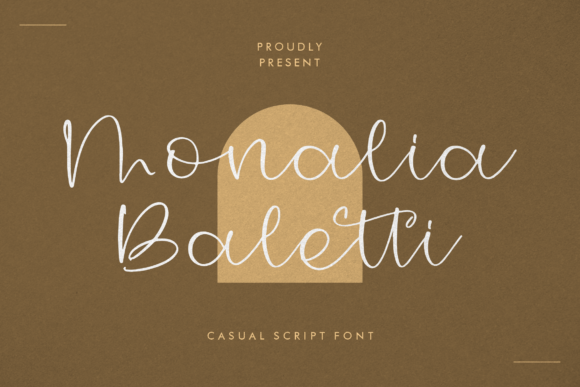
Introducing Monalia Baletti, an exquisite script font crafted by the talented artists at Letterfabric. Its sweeping curves and graceful strokes exude elegance and charm, making it the perfect choice for your creative projects.
Compose captivating logos that leave a lasting impression. Let your branding projects radiate sophistication with Monalia Baletti's timeless aesthetic. Elevate homeware designs with a touch of refined beauty. Transform product packaging into objects of desire, each one a testament to your discerning taste.
Create mugs that speak volumes, each sip a celebration of life's simple pleasures. Express your emotions eloquently on posters and quotes, letting your words dance with grace. Design shopping bags that turn heads, transforming everyday errands into fashion statements. Unleash your inner artist with t-shirts that showcase your unique style.
Adorn book covers with Monalia Baletti's enchanting allure, captivating readers from the very first glance. Create name cards that exude professionalism and leave a lasting impression. Craft invitation cards and greeting cards that convey your heartfelt sentiments in a truly memorable way.
Capture life's precious moments with photographs enhanced by Monalia Baletti's delicate touch. Create watermarks that add an air of exclusivity to your digital creations. Let your special events shine with Monalia Baletti as the backdrop, transforming them into unforgettable occasions.
Explore your creativity and embark on a journey of endless possibilities with Monalia Baletti. Unleash your imagination and let your designs flourish, knowing that this elegant script font will elevate your work to new heights of beauty and sophistication.